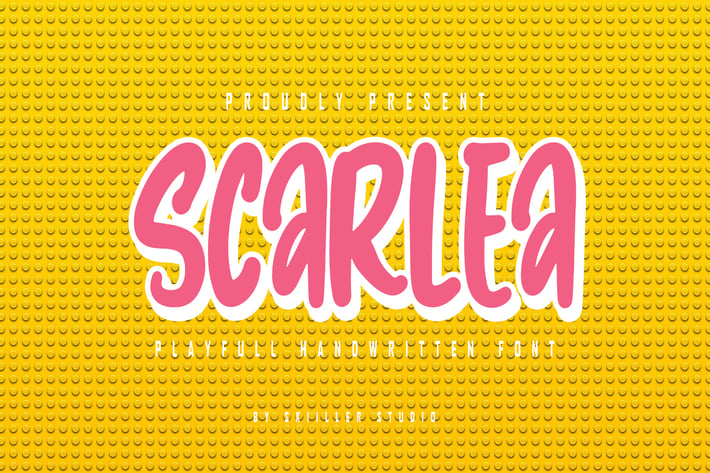
Scarlea - Playful Handwritten Font
Scarlea is a playful and cool lovely font. This font is perfect for children themed designs, especially when combined with bright colors.